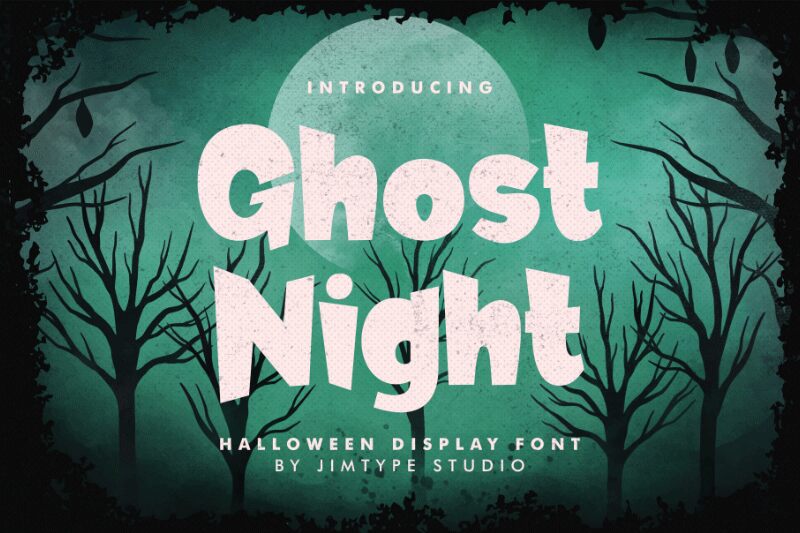
Discover the enchanting ‘Ghost Night‘ Halloween Font – a perfect blend of unique and stylish!
Designed with hauntingly beautiful details, this extra-bold font by Jimtype Studio is your ultimate tool for creating captivating Halloween designs, eerie posters, and chilling party invitations. Let the sharp edges and dark elegance of this font unleash your creativity as you bring ghoulish designs to life. Whether you need a Sans Font for a mysterious headline or a Display font that adds an eerie touch to your project, ‘Ghost Night‘ has got you covered.
Get ready to leave a lasting impression with this spellbinding typeface.